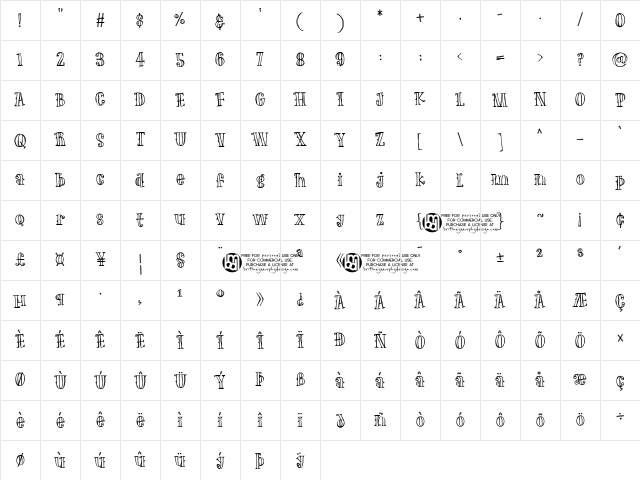
The Old Forest Outline Regular Free Font
The Old Forest Outline Regular
Foundry: Brittney Murphy
Designer: Brittney Murphy
Design Context for The Old Forest Outline
The Old Forest Outline is built around its visual character rather than neutral utility - its distinctive forms are designed to make an impression at display sizes.
Font Pairing: Pair with a clean neutral sans-serif for body copy to let The Old Forest Outline's character lead without overwhelming the composition.
Pro Tip: Use The Old Forest Outline exclusively at display sizes - it was designed to be seen, not read at length. Let a neutral companion handle body copy.